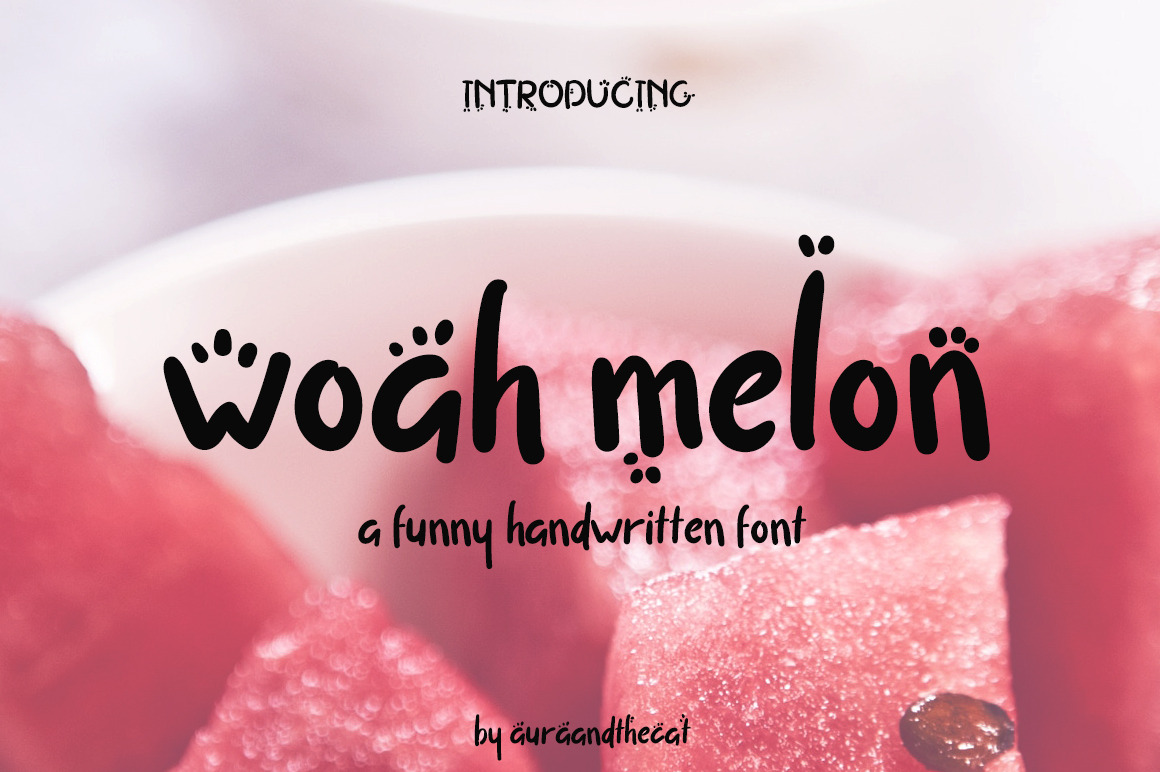
Woah Melon font
Woah Melon is a fun, cutie handwritten font that comes with normal and special characters. It's perfect for your personal or commercial projects, create invitations, logos, book covers, stationery, quotes and more.